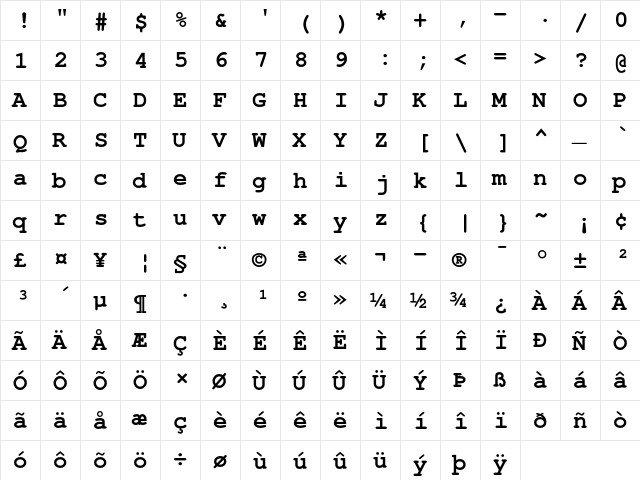
Nimbus Mono L Bold
Design Context for Nimbus Mono L Typeface
Nimbus Mono L brings the precise, column-aligned rhythm of monospaced typography to designs that value technical clarity and systematic order. The heavy weight commands attention and anchors typographic hierarchies.
Pro Tip: Pair Nimbus Mono L with a proportional sans for UI contexts where code-style labels and regular body copy need to coexist.